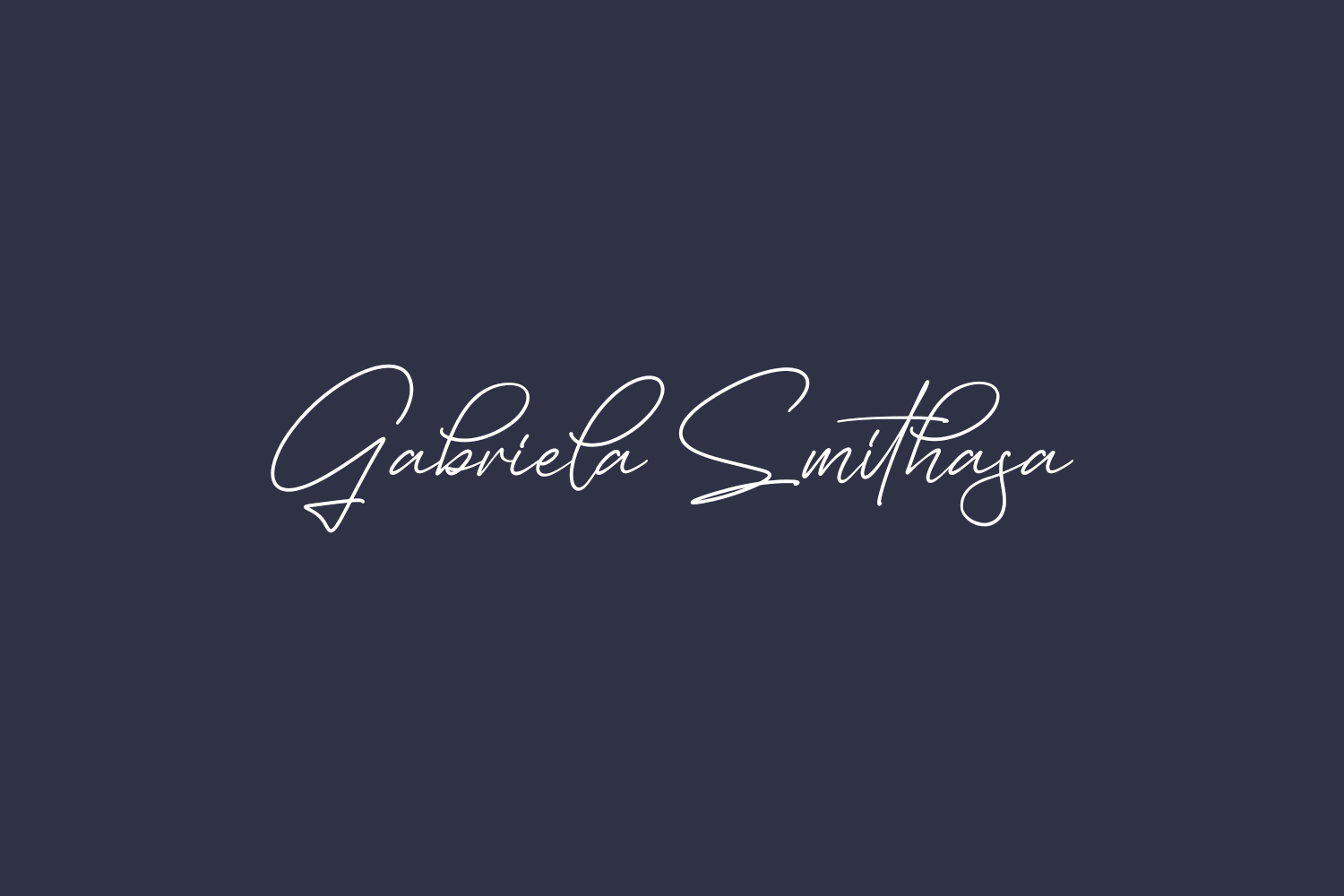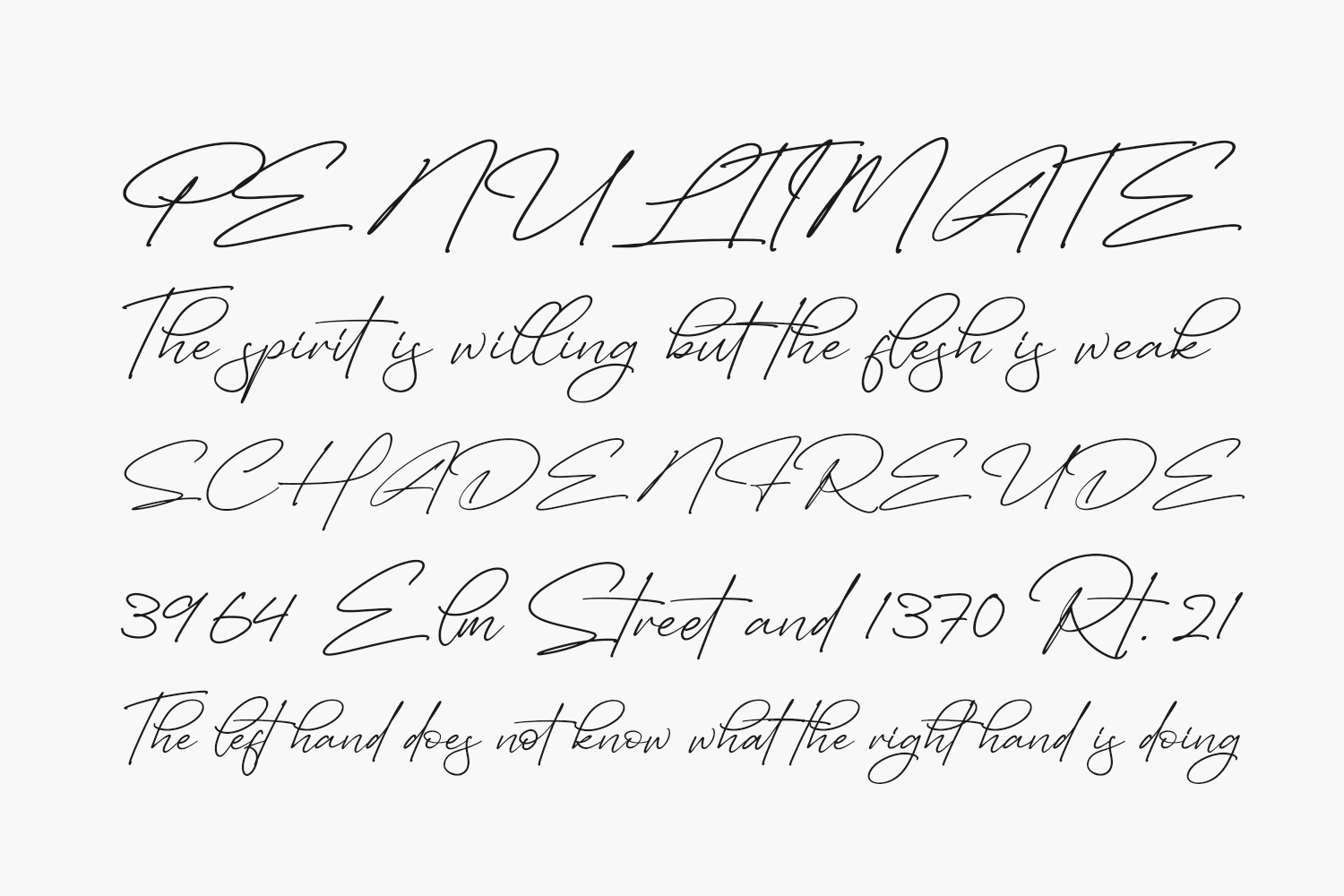
Gabriela Smithasa – Free Romantic Calligraphy Script Font
Gabriela Smithasa is a romantic, sweet calligraphy script font designed by Letterena Studios. Its elegantly flowing strokes and playful baseline give your designs a graceful and personal feel. Ideal for wedding invitations, personal branding, logos, greeting cards, and luxury stationery, this free font is available in OTF format for personal use. A full commercial license can be purchased via the designer’s site.
Why Choose Gabriela Smithasa?
- Handcrafted Elegance: Smooth, fluid lines create a charming handwritten effect.
- Romantic & Personal: Swashes and delicate curves add a luxurious feel.
- Perfect for Celebrations: Ideal for wedding invites, anniversary cards, and party stationery.
Where to Use Gabriela Smithasa?
- Wedding Invitations & Stationery: Brings elegance to save-the-dates, menus, and RSVP cards.
- Personal & Boutique Branding: Signature-style logos for photographers, boutiques, or handmade brands.
- Greeting Cards & Gift Tags: Adds heartfelt charm to holiday or event messages.
- Social Media & Blog Graphics: Stylish headers and quote overlays for Instagram, Pinterest, or blogs.
- Luxury Packaging: Perfect for premium product labels, perfume tags, or boutique packaging.
Design Tips with Gabriela Smithasa
Use Gabriela Smithasa at medium sizes (24–36pt) to highlight its flowing swashes and fluid baseline. Pair it with a clean sans-serif like Lato or Open Sans for contrast. Elegant palettes—such as blush, ivory, or muted gold—enhance its romantic aesthetic. Add generous line spacing to preserve its airy feel in digital and print layouts.
- Glyphs: Uppercase (A–Z), lowercase (a–z), numerals, punctuation, basic Latin.
- Language Support: English and Western European Latin.